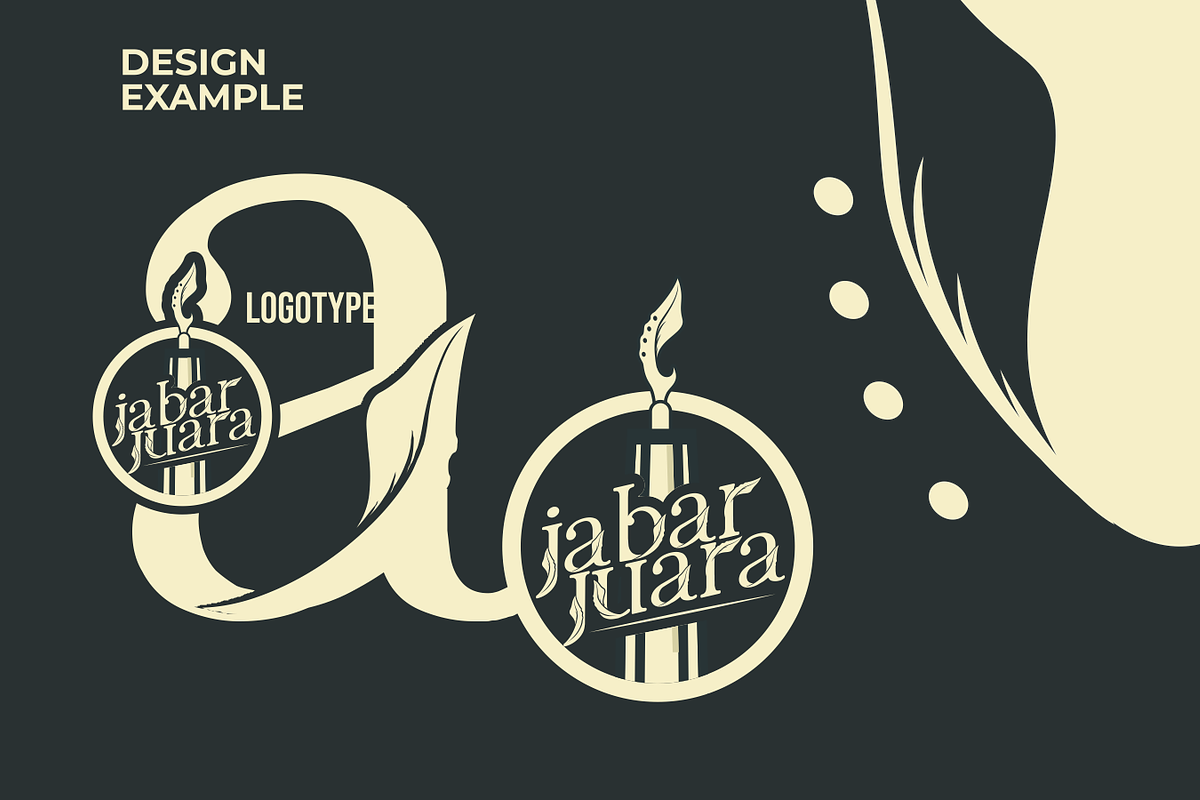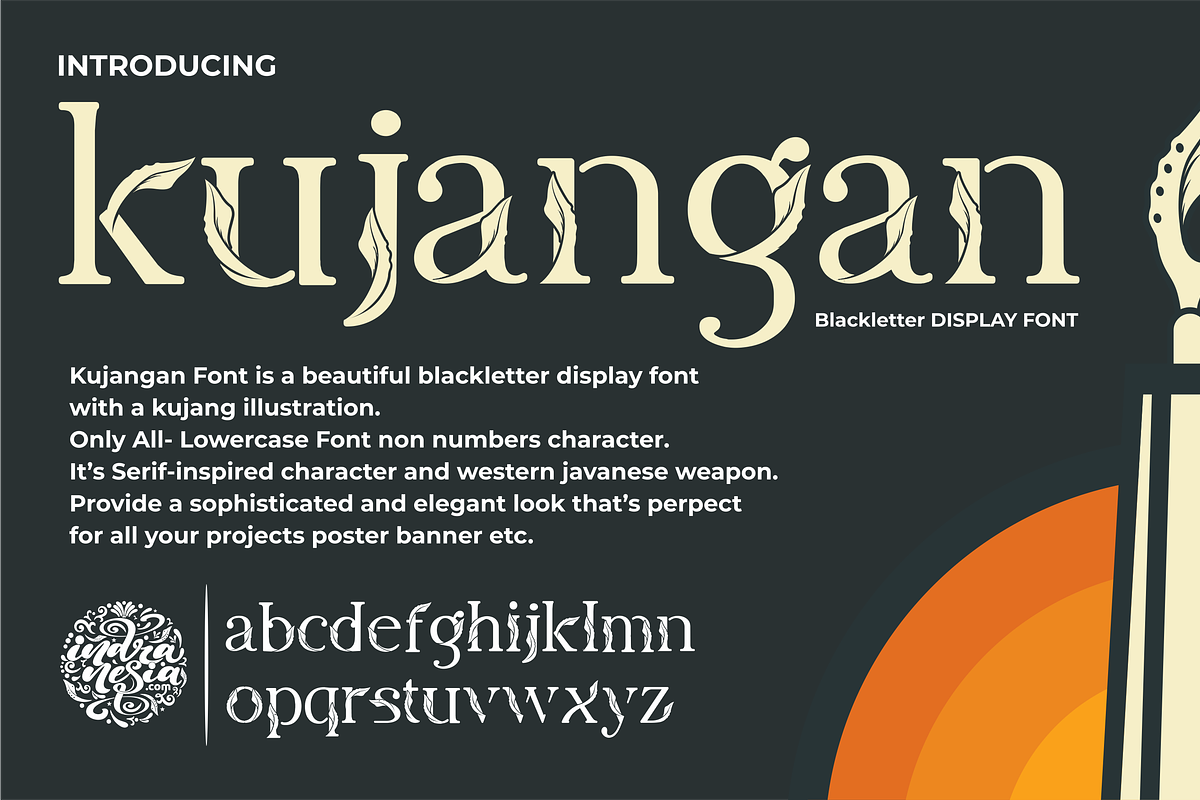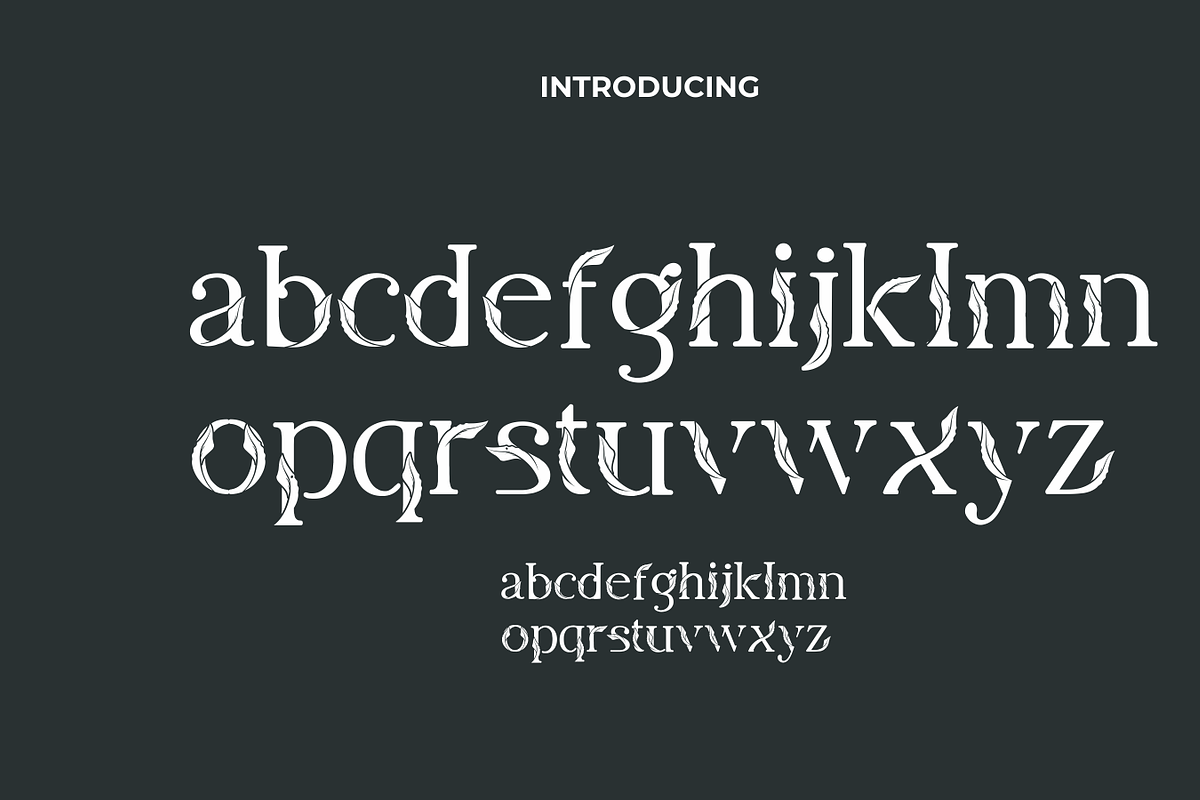
Kujangan - Blackletter Display Font
Kujangan Font is a beautiful blackletter Display font with a kujang illustration.
- Only all-Lowercase Font
- Non numbers character.
It's Serif - inspired character and western javanese weapon. Provide a sohisticated and elegant look that's perpect for all projects like a logo, poster, banner, etc